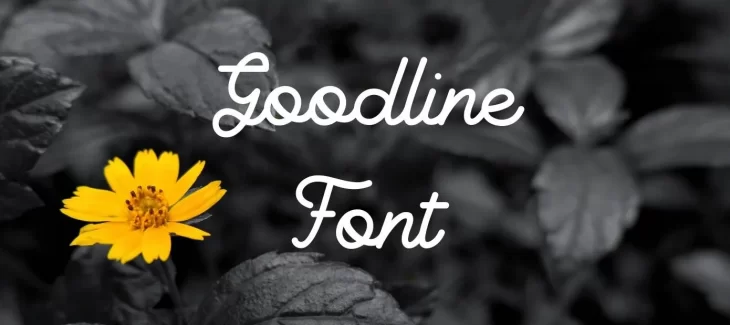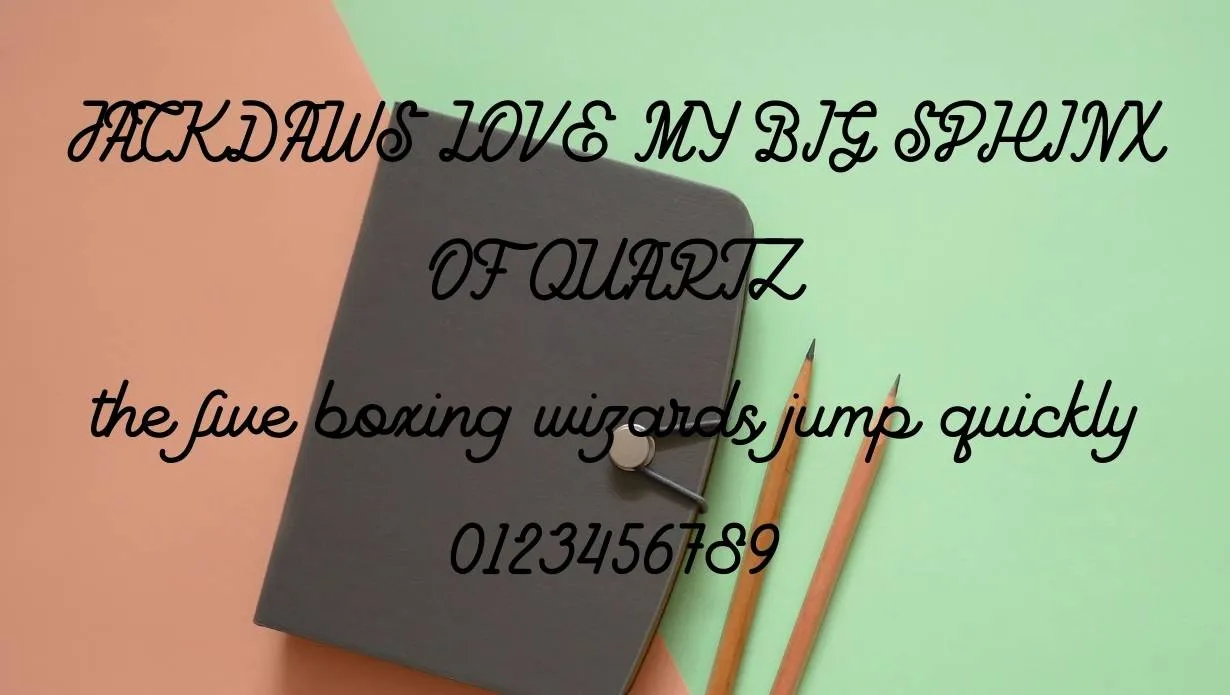
Goodline Font is a typeface designed by Jim Rimmer and released by his company, Letraset, in 1977. The face is a monospaced design, with each character occupying the same amount of horizontal space. This Font was created for use on Letraset’s dry-transfer lettering sheets.
This Font is based on Rimmer’s earlier typeface, Letraset Signature, which was created for hand-lettered logos and headlines. This Font took the basic form of Signature and refined it into a more usable, all-purpose design.
This Font family includes four weights: regular, bold, italic, and Bold Italic. Each weight includes a full alphabet, numerals, and a selection of punctuation marks.
This Font was used extensively in the early days of personal computing when monospaced typefaces were the norm for on-screen text. It was one of the first typefaces to be included with Apple’s Macintosh computer, and it was also bundled with Microsoft’s first version of Windows.
Who Used Goodline Font?
Goodline Font can be used for headlines, body text, and even small print. This Font is a great choice for any project that requires a clean and readable typeface. Goodline Font is still available today, and it remains a popular choice for developers and designers who need a monospaced typeface.
This Font has been used in a wide variety of publications over the years, including The Wall Street Journal, Newsweek, and Time magazine. It remains a popular choice for on-screen text due to its clean, simple design.
This font is commonly used for various purposes like documents, spreadsheets, presentations, websites, and even for coding. It has a condensed texture style and has a pairing personality with other style typefaces just like wordan font that you can easily get from this website.
Goodline Font Family Appearance
| Name | Goodline Font |
| Designer | Jim Rimmer |
| Style | Script |
Is Goodline a proportional Font?
Goodline is not a proportional Font, each character in Goodline occupies the same amount of horizontal space.
Is Goodline a modern Font?
The typeface has very stylish characters, symbols, numbers, and many usable alternates as well. These all characters make it more professional and usable in every age of design.
Is Goodline Font easy to read?
Yes, This Font is easy to read because of its simple and clean design. The characters are well spaced and have a uniform width, which makes them easy to distinguish from one another.